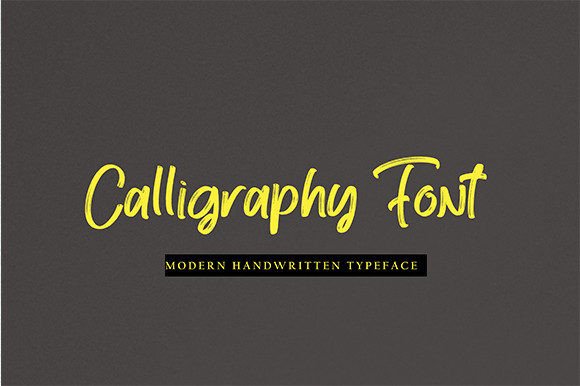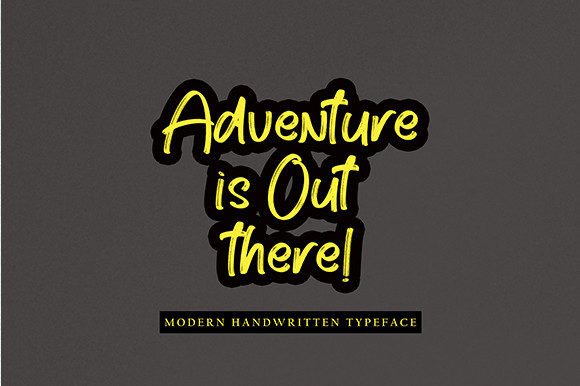
About Yellow Flash
Yellow Flash is a cool and modern handwritten font featuring the perfect amount of trendiness. Whether you’re using it for crafting, digital designing, presentations, or greeting card making, it’s perfect!